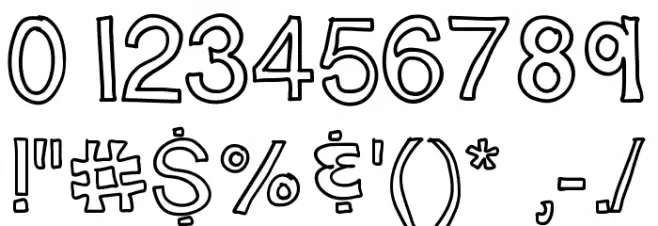
SloppyHollow Font
SloppyHollow Description
This font features a playful and slightly irregular outline style, giving it a hand-drawn appearance. The characters are bold and have a hollow interior, which adds a unique and artistic flair. The uppercase and lowercase letters maintain consistent proportions, while the numbers and special characters follow the same design ethos, ensuring uniformity across all glyphs. The overall look is casual and informal, making it suitable for creative and fun projects. The font's quirky nature is emphasized by its uneven lines and whimsical character shapes, which can add a touch of personality to any design.
A playful, hand-drawn outline font with a hollow interior and quirky character shapes from Uncategorized fonts.
- Proposed Projects: Ideal for children's book covers, playful posters, greeting cards, and creative branding materials.